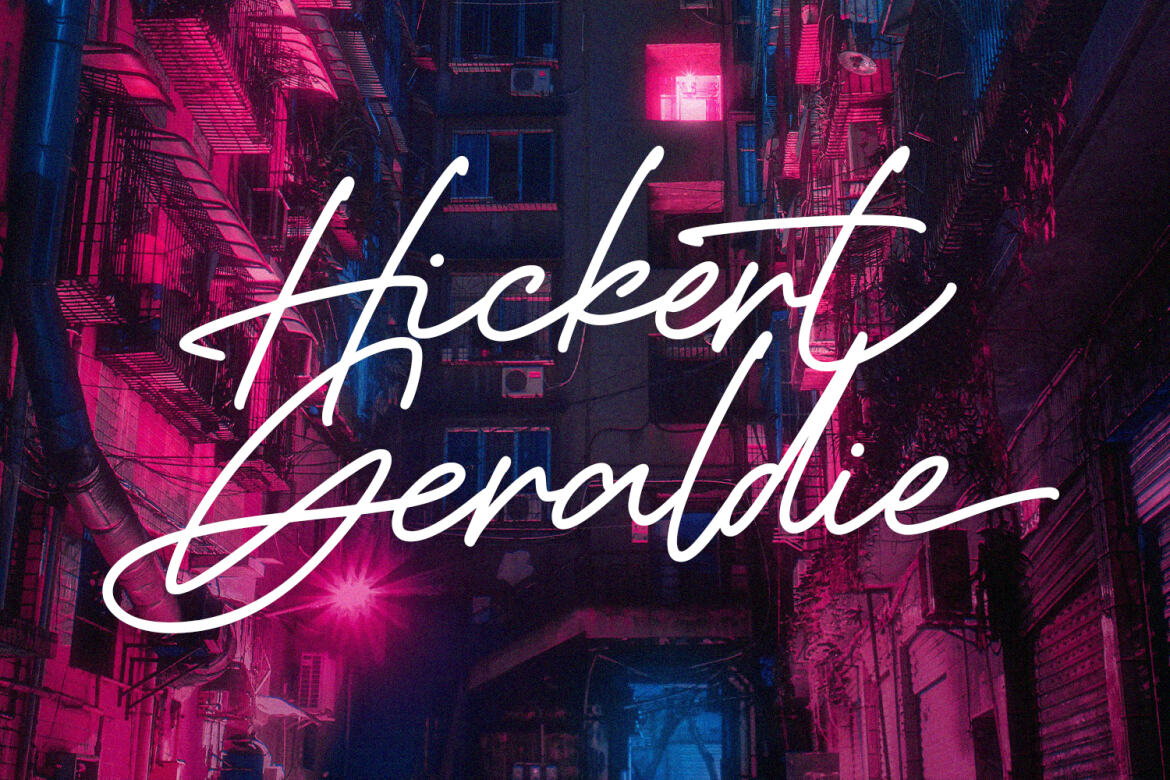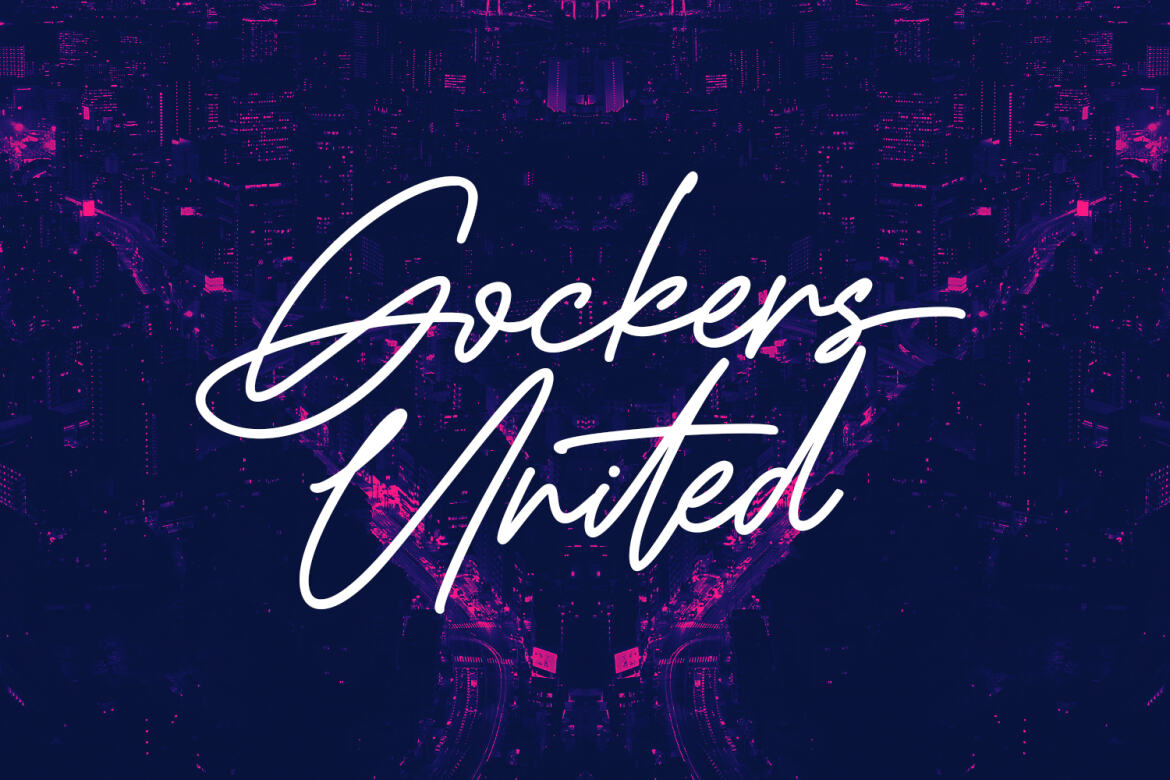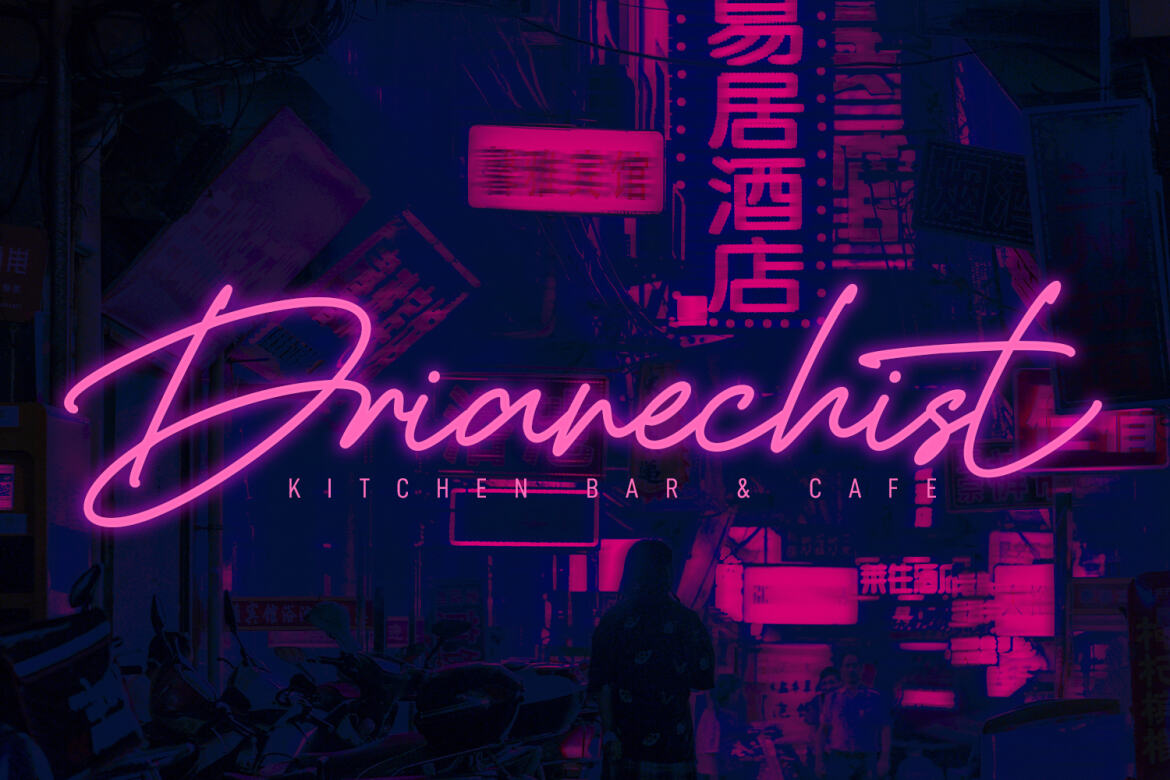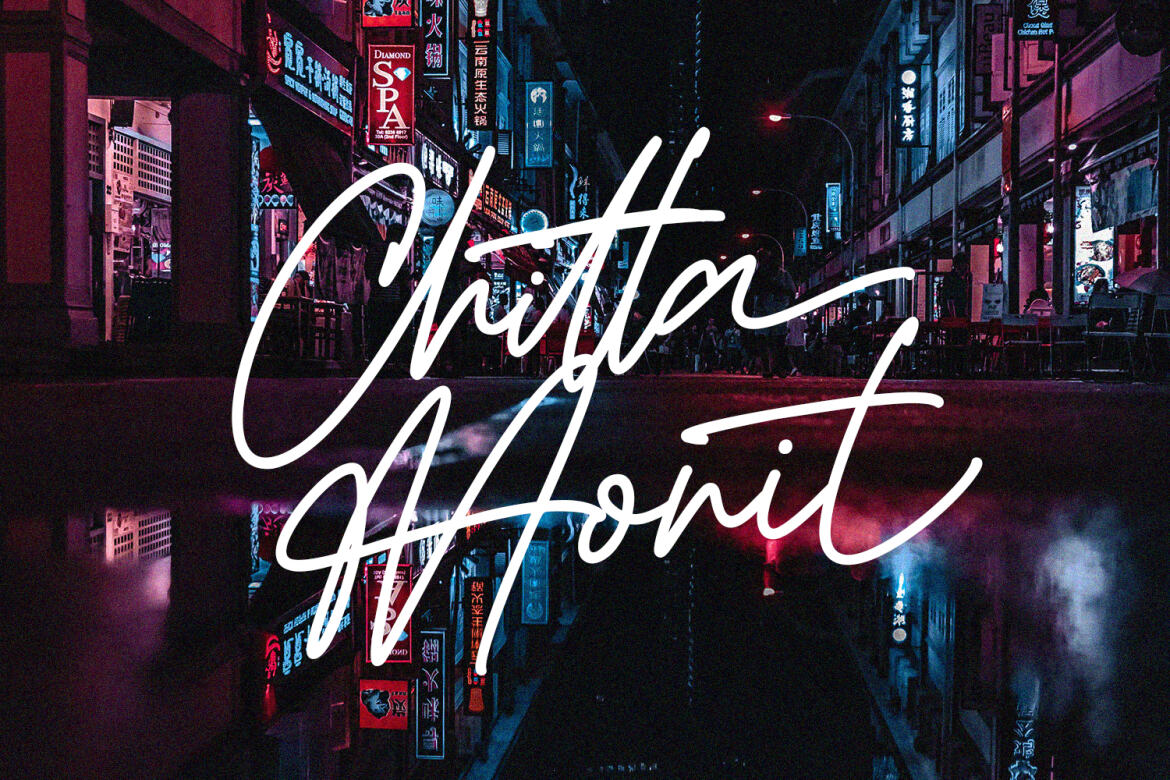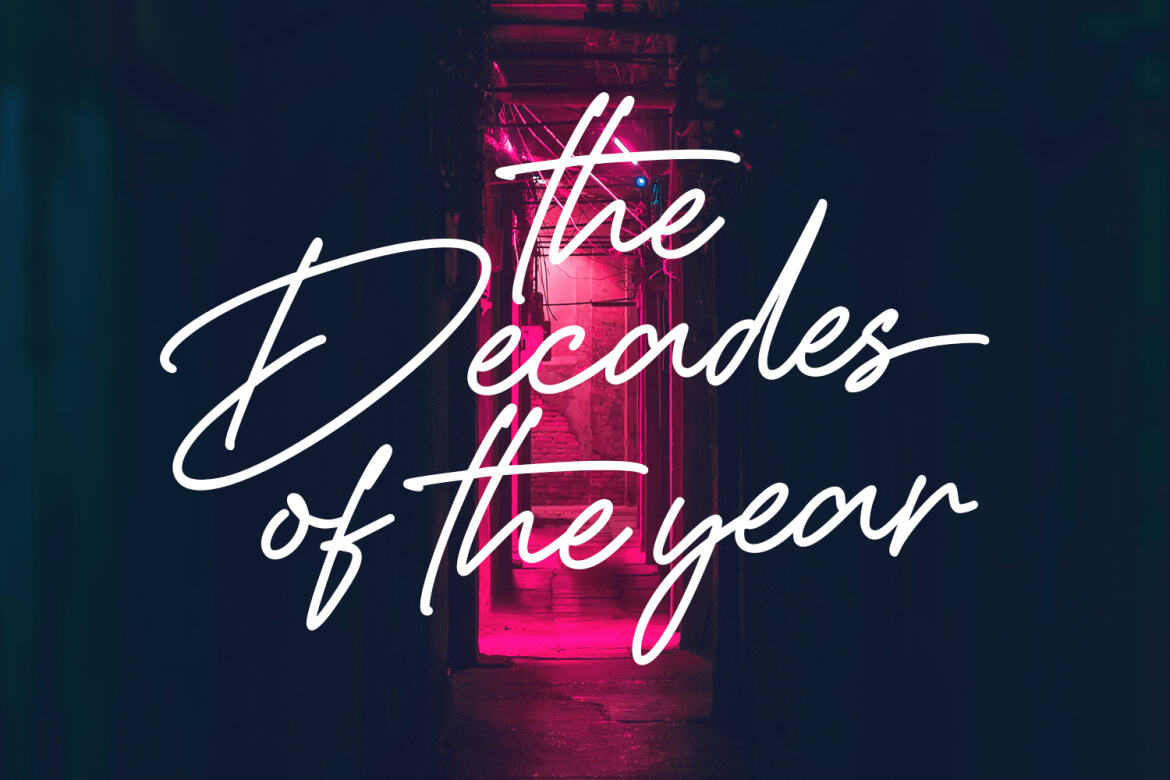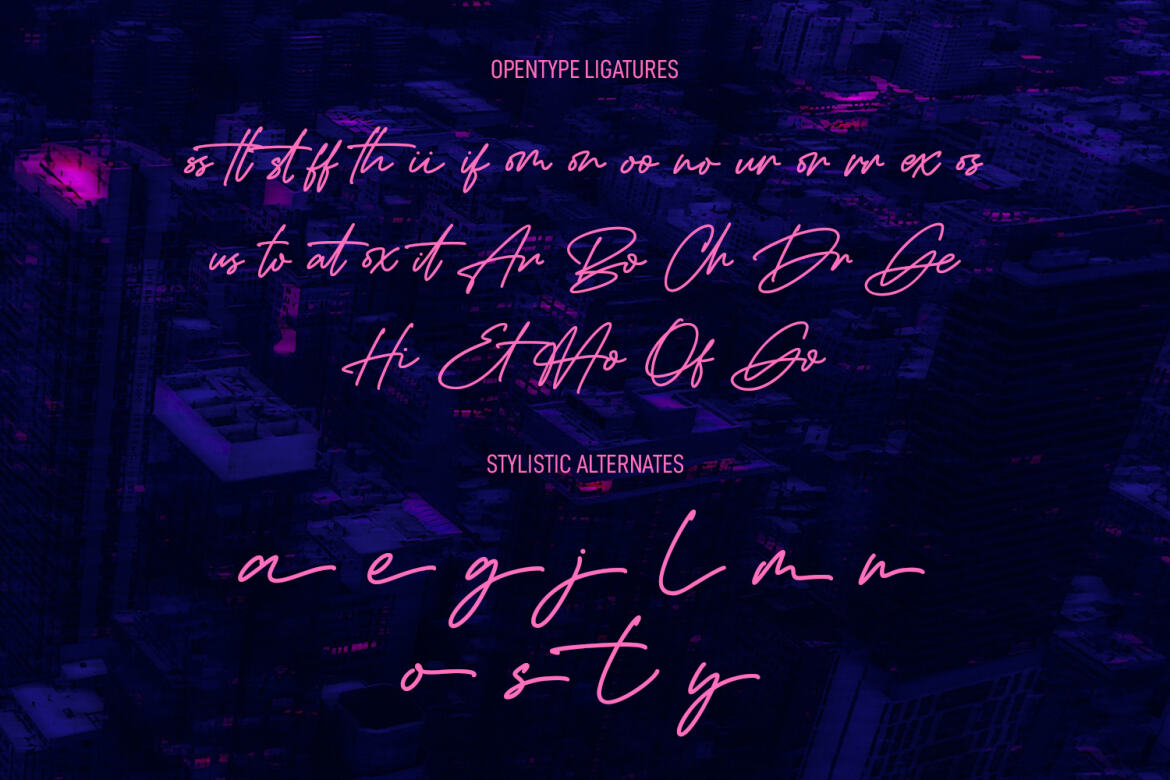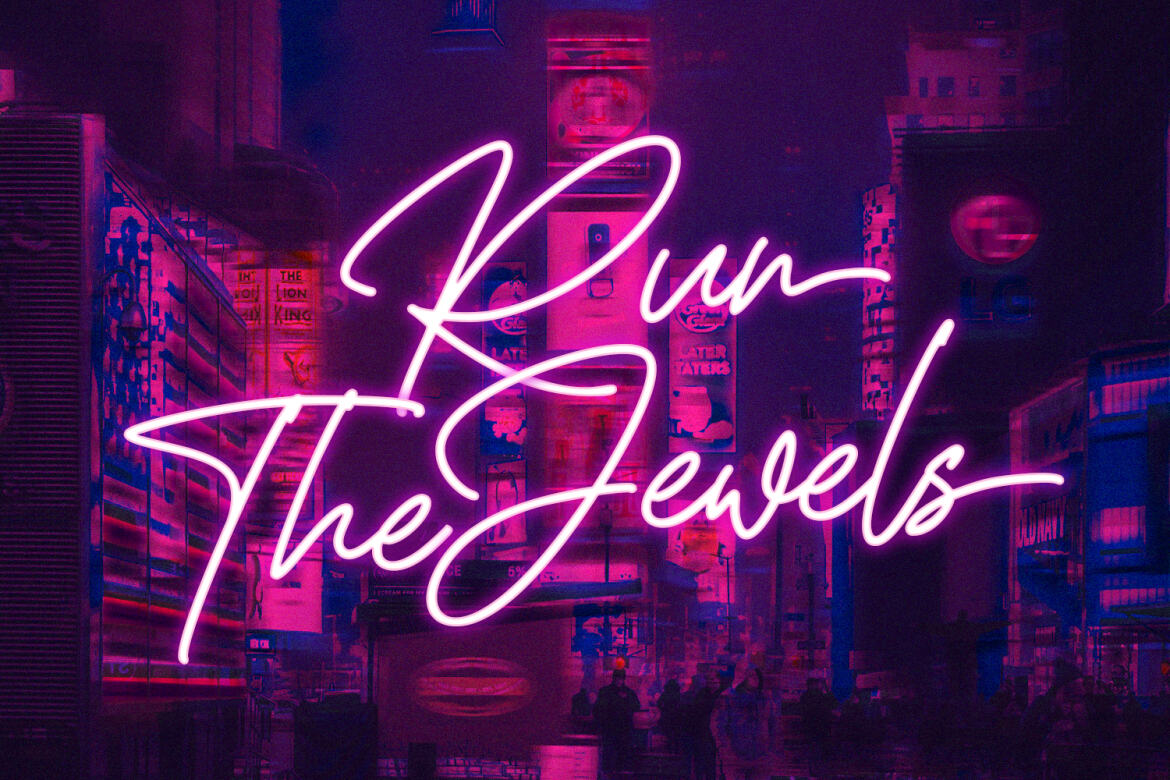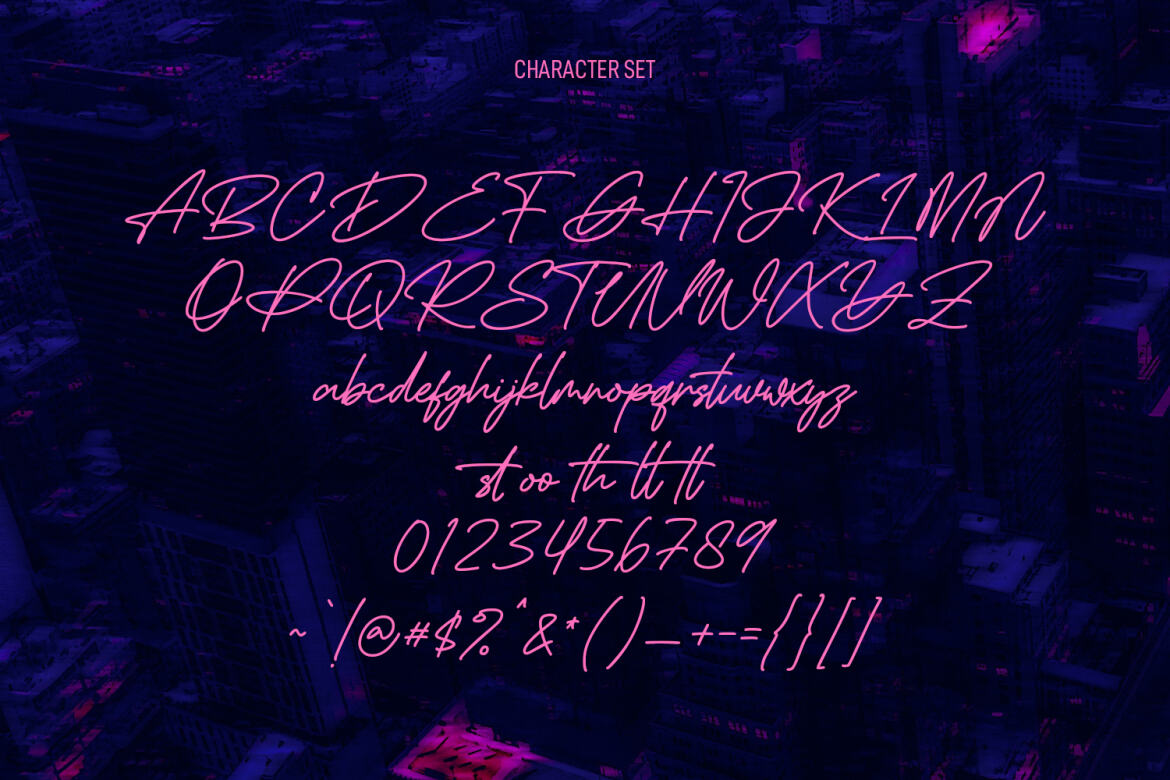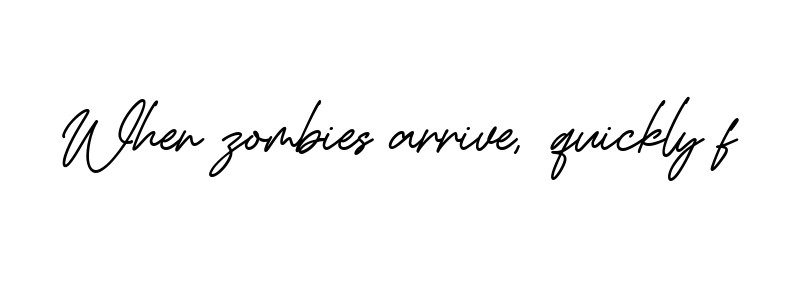
Drive Hearts FREE Signature Script Font
Drive Hearts
"Drive Hearts" is an 90's vibes expressive signature script font. With mono-line stroke, slanted, fun character with a bit of expressive natural ligatures and lowercase alternates. To give you an extra creative work. "Drive Hearts" font support multilingual more than 100+ language. This font is good for logo design, Social media, Movie Titles, Books Titles, a short text even a long text letter and good for your secondary text font with sans or serif. Make a stunning work with "Drive Hearts" font.